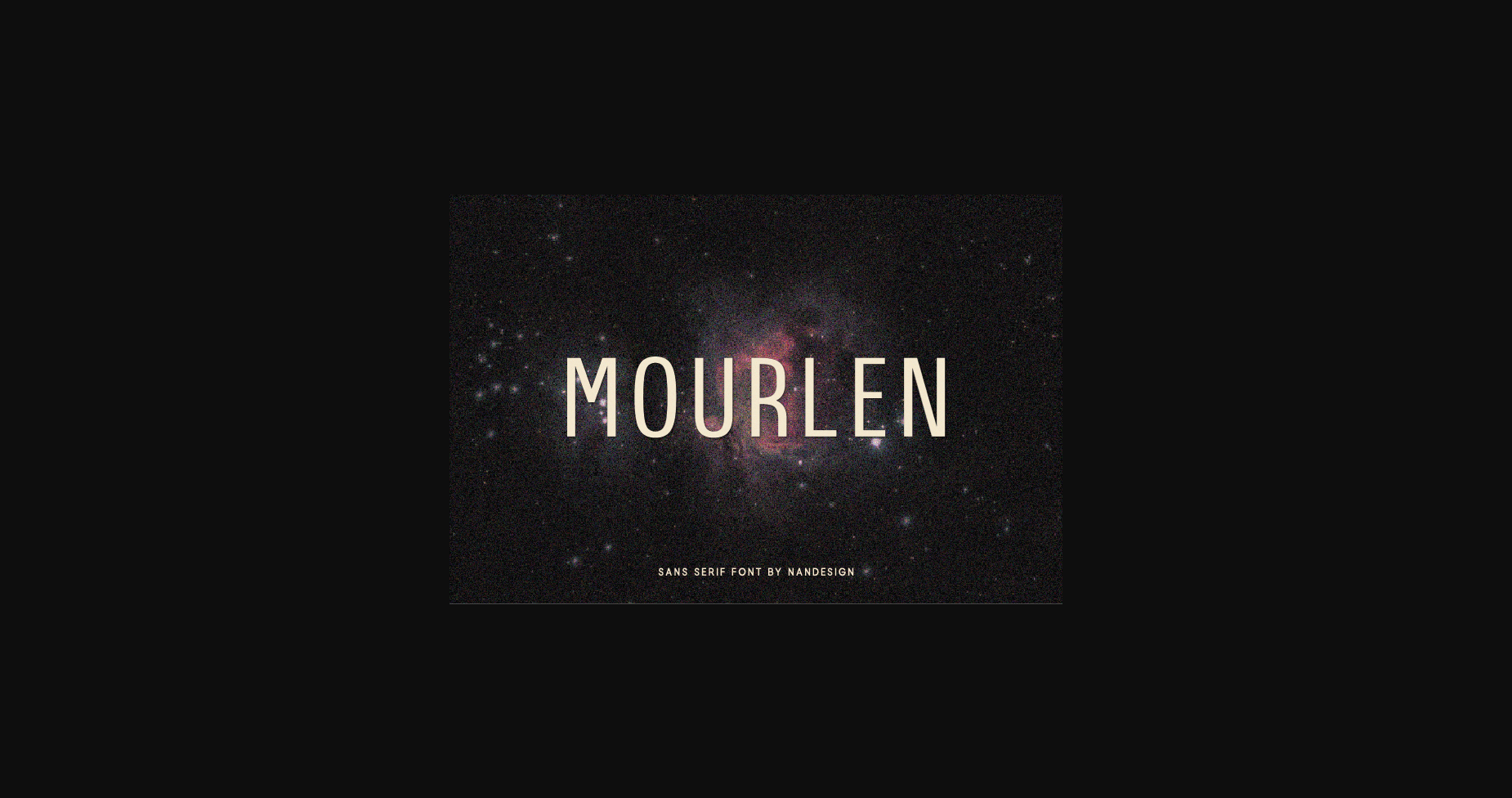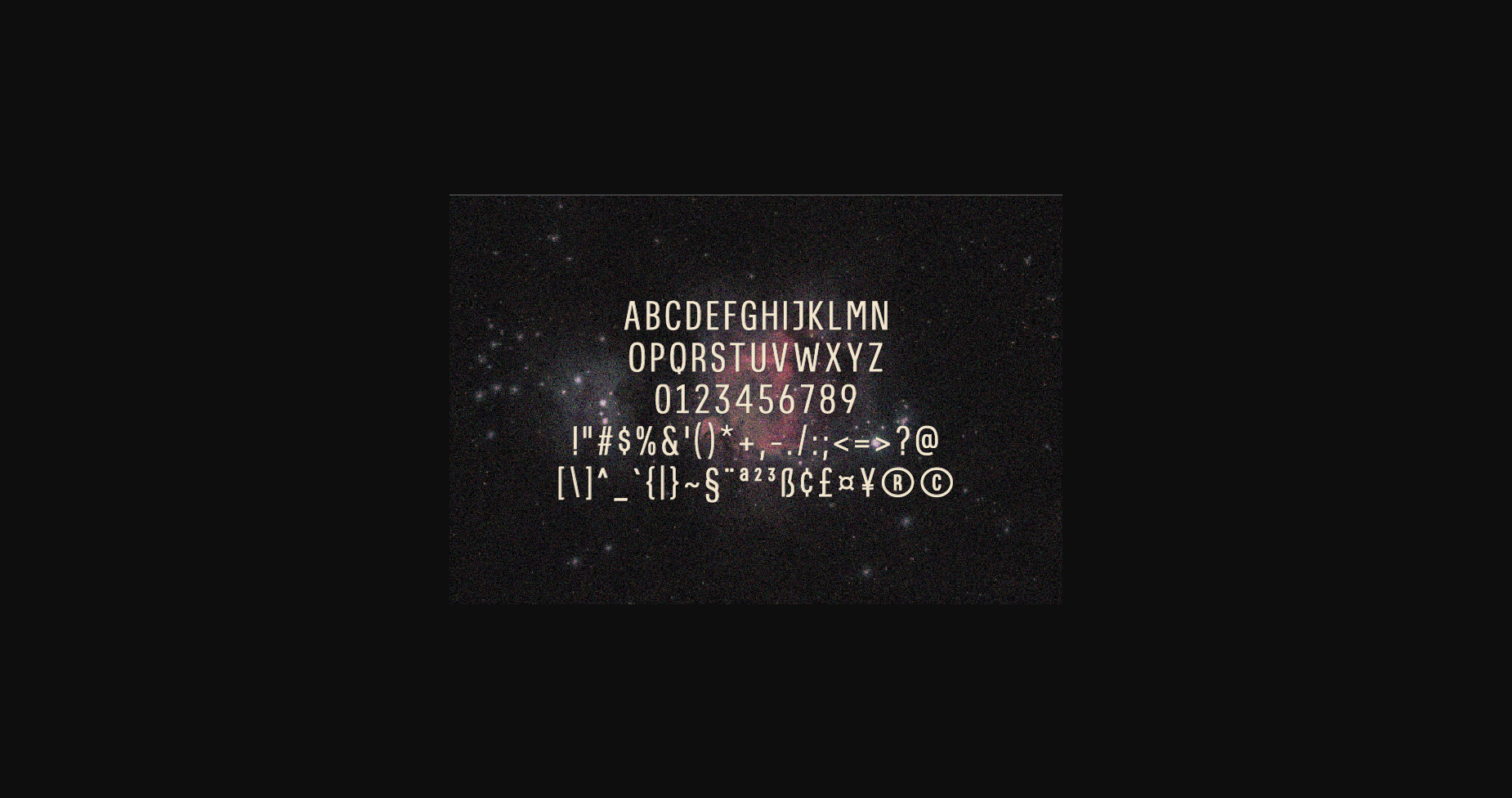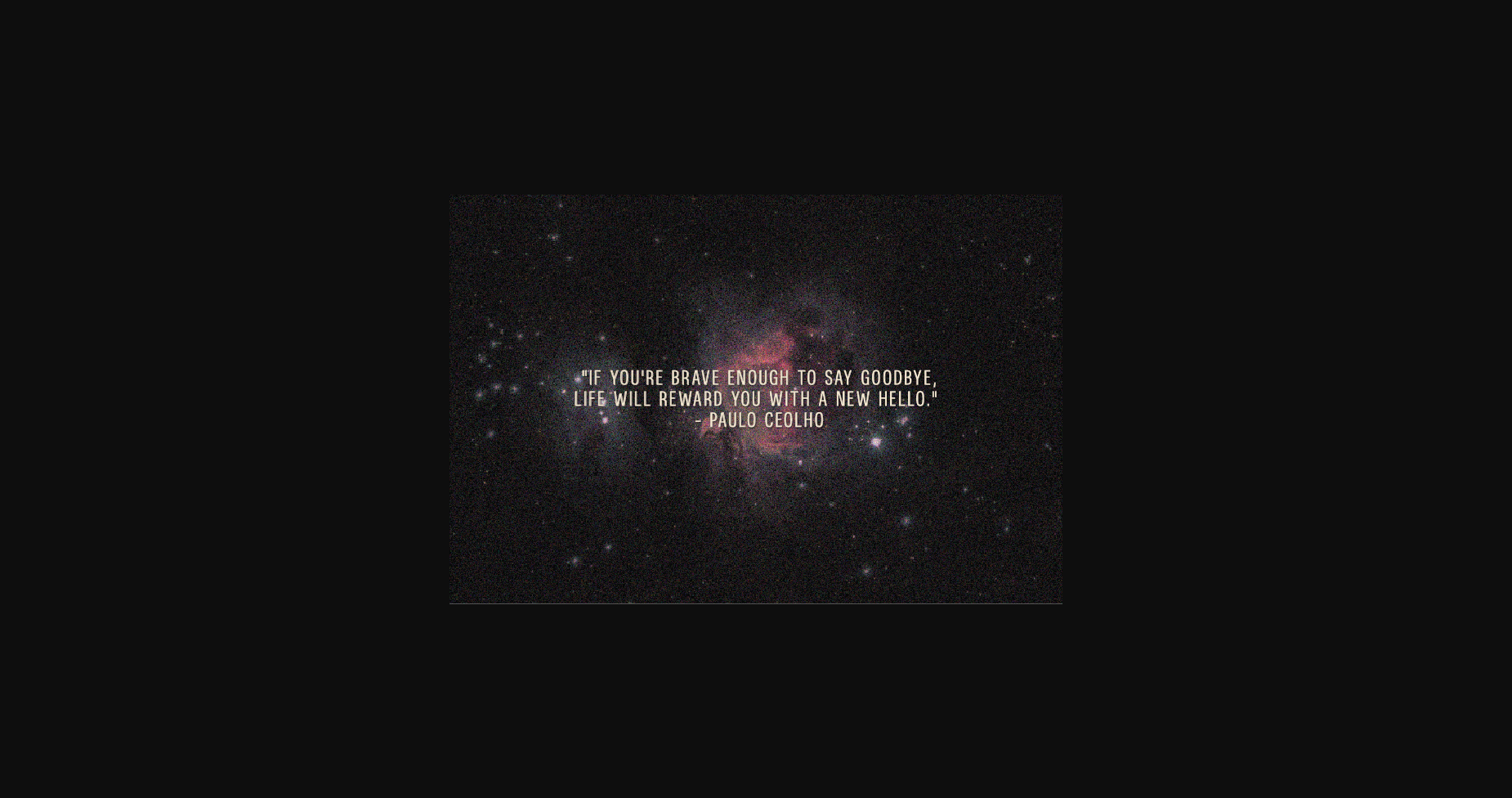
About Mourlen Font
Mourlen is a tall and neat lettered sans serif font, designed to complement every project you’re working on.
Use to create beautiful headings, gorgeous invitations, stunning logos, and so much more!